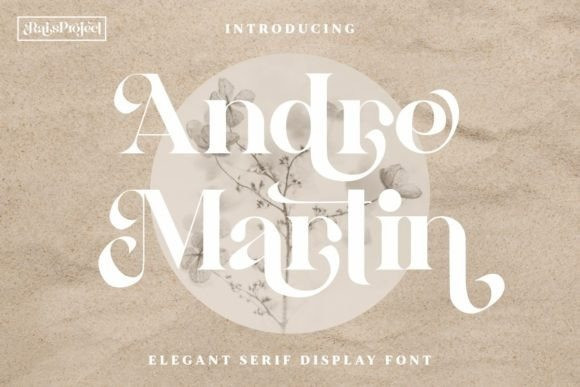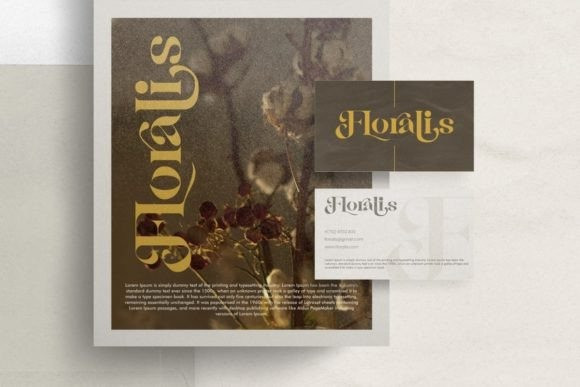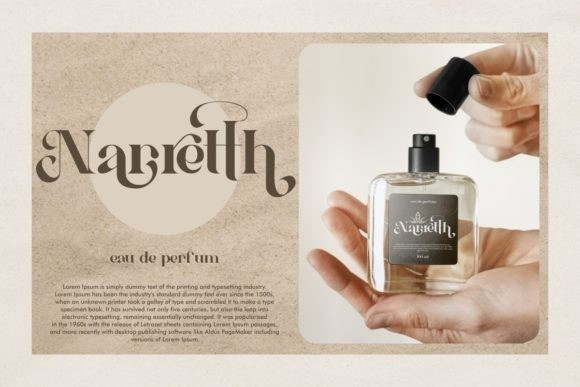
Andre Martin Font
Andre Martin is an elegant serif display font that has a beautiful look on every line. There are flower petal-like curves in each letter that add to the aesthetic impression. This font is perfect for boutiques, business cards, cosmetics, jewelry, logo branding, magazine covers, perfumes, and many more!